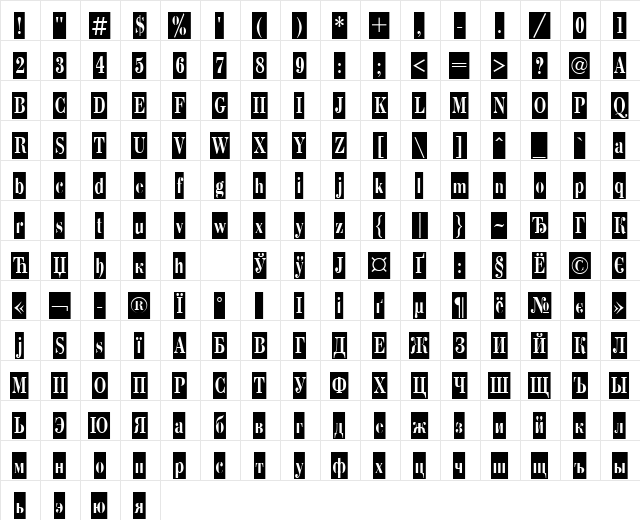
BodoniCameoCTT Regular Font Preview
BodoniCameoCTT Regular
BodoniCameoCTT Regular Font Details
Design Context for BodoniCameoCTT Typeface
BodoniCameoCTT takes a measured approach to typography — its balanced proportions and neutral character make it a reliable workhorse for both digital and print work.